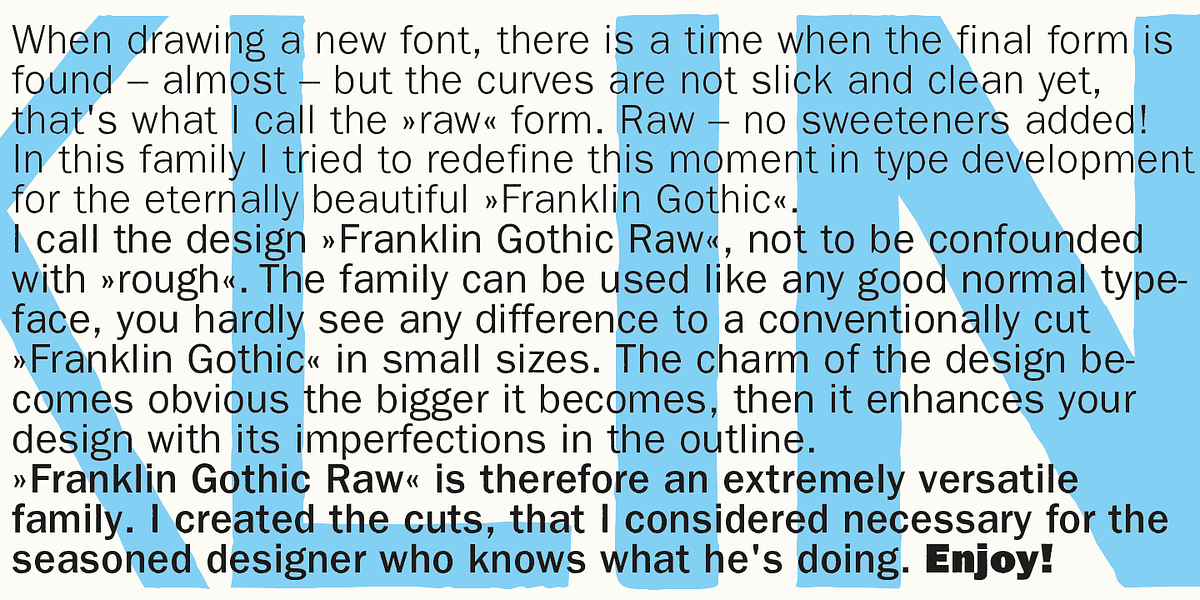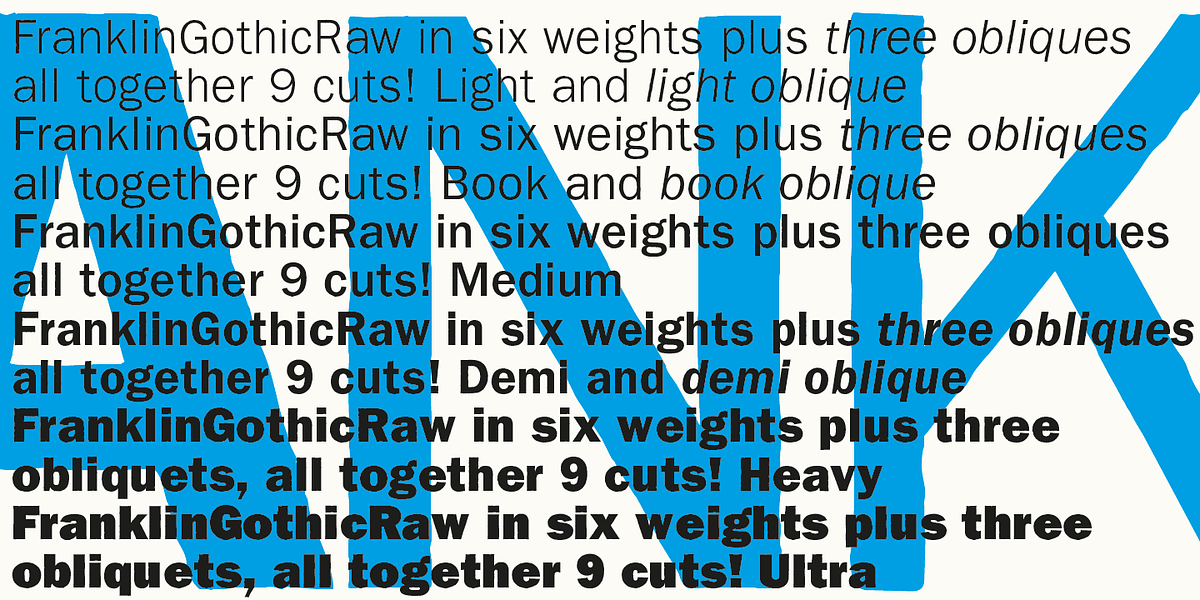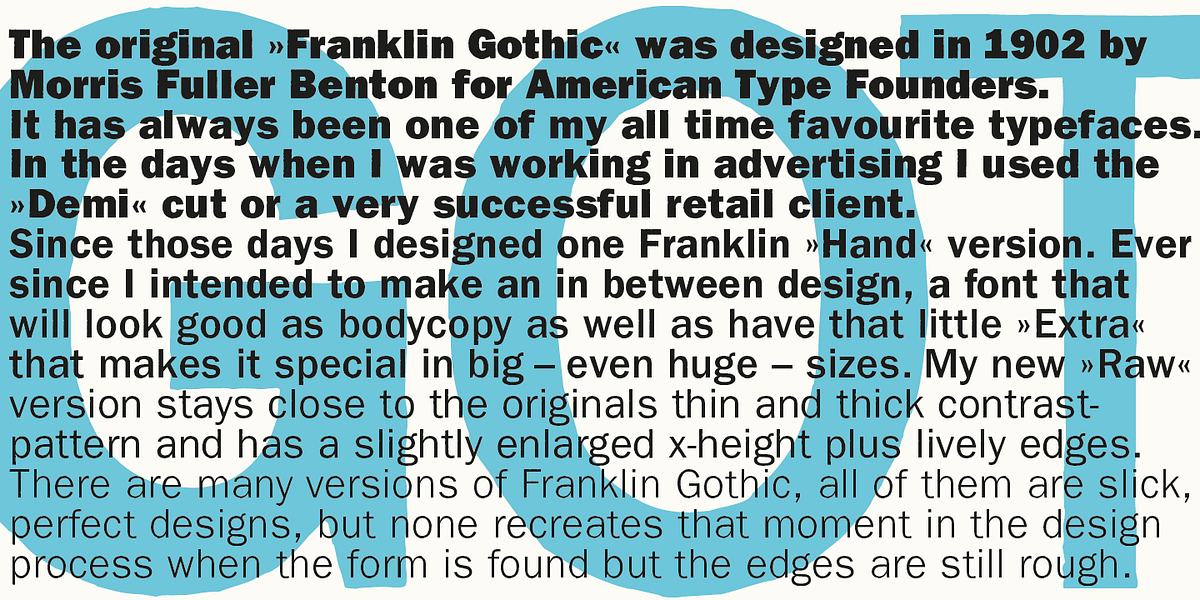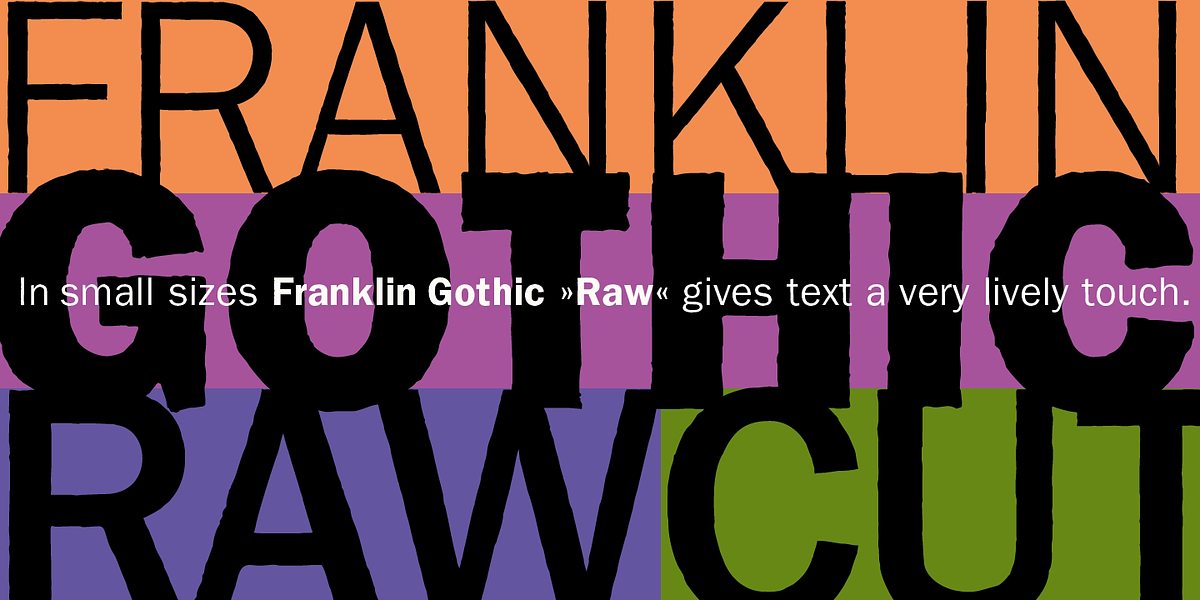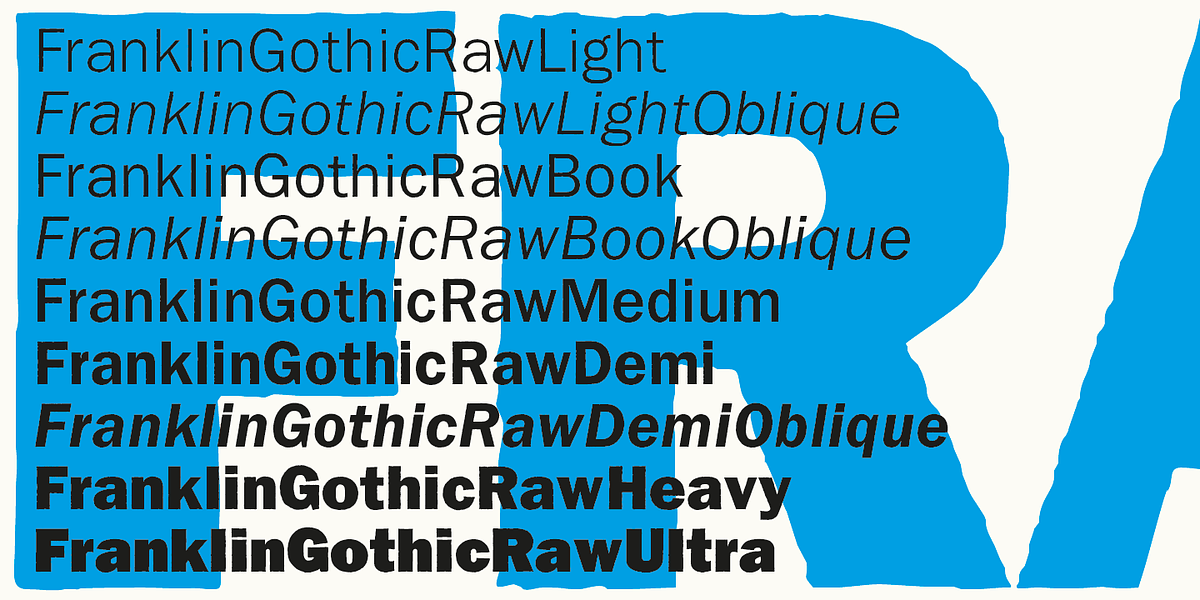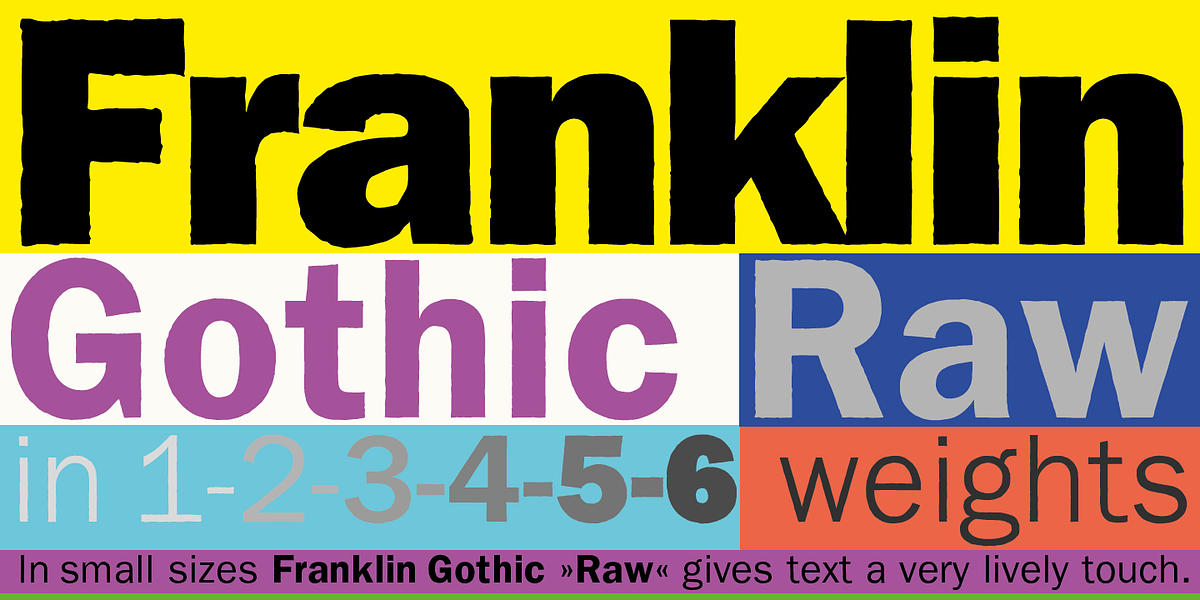
Franklin Gothic Raw
Franklin Gothic Raw is a sans serif font designed to emulate the imperfect, 'raw' stage of type development. While usable at smaller sizes like a conventional Franklin Gothic, its charm emerges at larger sizes where the intentionally roughened curves add visual interest and personality. The designer intended this font for seasoned designers who can leverage its unique character.